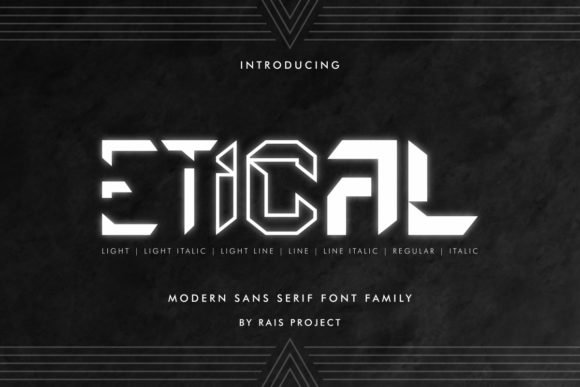
Unlocking the Power of Bold Typography
As designers, we’ve all had those moments of pure creative ecstasy – when a fresh idea sparks and everything clicks into place. For me, it’s often when I stumble upon the perfect font to elevate a project. Recently, I discovered Etical Font, and I’m still reeling from the possibilities it’s opened up. This futuristic display font is a game-changer for anyone looking to make a statement in their designs.
Etical Font is designed to take center stage, and it’s perfect for posters, flyers, and prints that need a bold and eye-catching look. With its sleek lines and geometric shapes, it’s an instant head-turner. For designers, Etical Font is a valuable asset that can help bring your vision to life and make your work stand out from the crowd.
Etical Font Key Features
- Font Family: Etical is a sans-serif font family designed for digital use, available in 8 styles, including Light, Regular, Medium, Bold, Extra Bold, Black, Italic, and Bold Italic.
- Character Set: Supports a wide range of languages, including Latin, Cyrillic, Greek, and Devanagari scripts, making it suitable for global applications.
- Unique Characteristics: Etical’s clean and modern design, combined with its extensive language support and versatile style options, make it an ideal choice for digital interfaces, publications, and branding materials.
Etical Font Review
Overall, I think the Etical font is a solid choice for designers looking for a unique, modern look. ✨ The font’s geometric shapes and clean lines give it a sophisticated feel that works well in a variety of contexts.
- ✨ Great for digital applications: The Etical font’s clear, legible lines make it a great choice for digital displays, such as websites, apps, and social media.
- ✨ Versatile: This font can be used in a range of designs, from corporate branding to creative projects.
- ✨ Easy to read: The font’s open counters and smooth lines make it easy on the eyes.
However, there are a few limitations to consider. ⚠️ The font’s bold weight can sometimes appear too condensed, which can affect readability in longer blocks of text. Additionally, the font’s unique shape may not be to everyone’s taste.
- ⚠️ Limited weight options: The font’s bold weight can be overwhelming in some cases.
- ⚠️ May not be suitable for all projects: The font’s unique shape may not be the best choice for more traditional or formal designs.
Overall, I think the Etical font is a great addition to any designer’s toolkit, but it’s not without its limitations. With careful use and consideration of the font’s strengths and weaknesses, it can add a unique touch to a variety of projects.
Etical Font Practical Application Guide
Tips for Getting the Most Out of Etical Font
Use Etical Font for headings and titles to add a touch of modernity to your design. Experiment with different font sizes and styles to create visual interest. Pair Etical Font with other fonts to create a unique and stylish typography combination.
Etical Font is suitable for a wide range of design projects, including:
- Business cards and stationery
- Website headers and footers
- Infographics and presentations